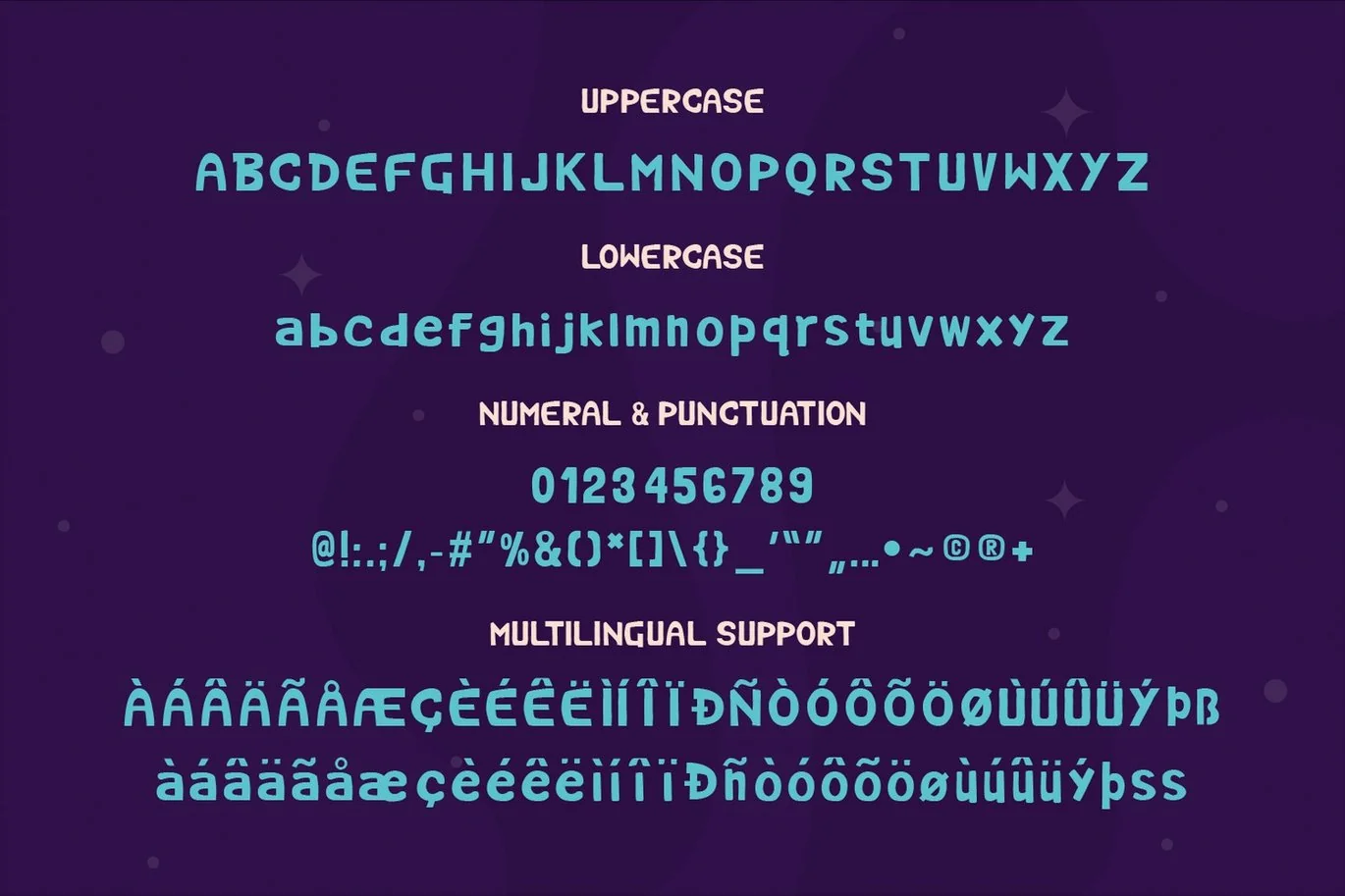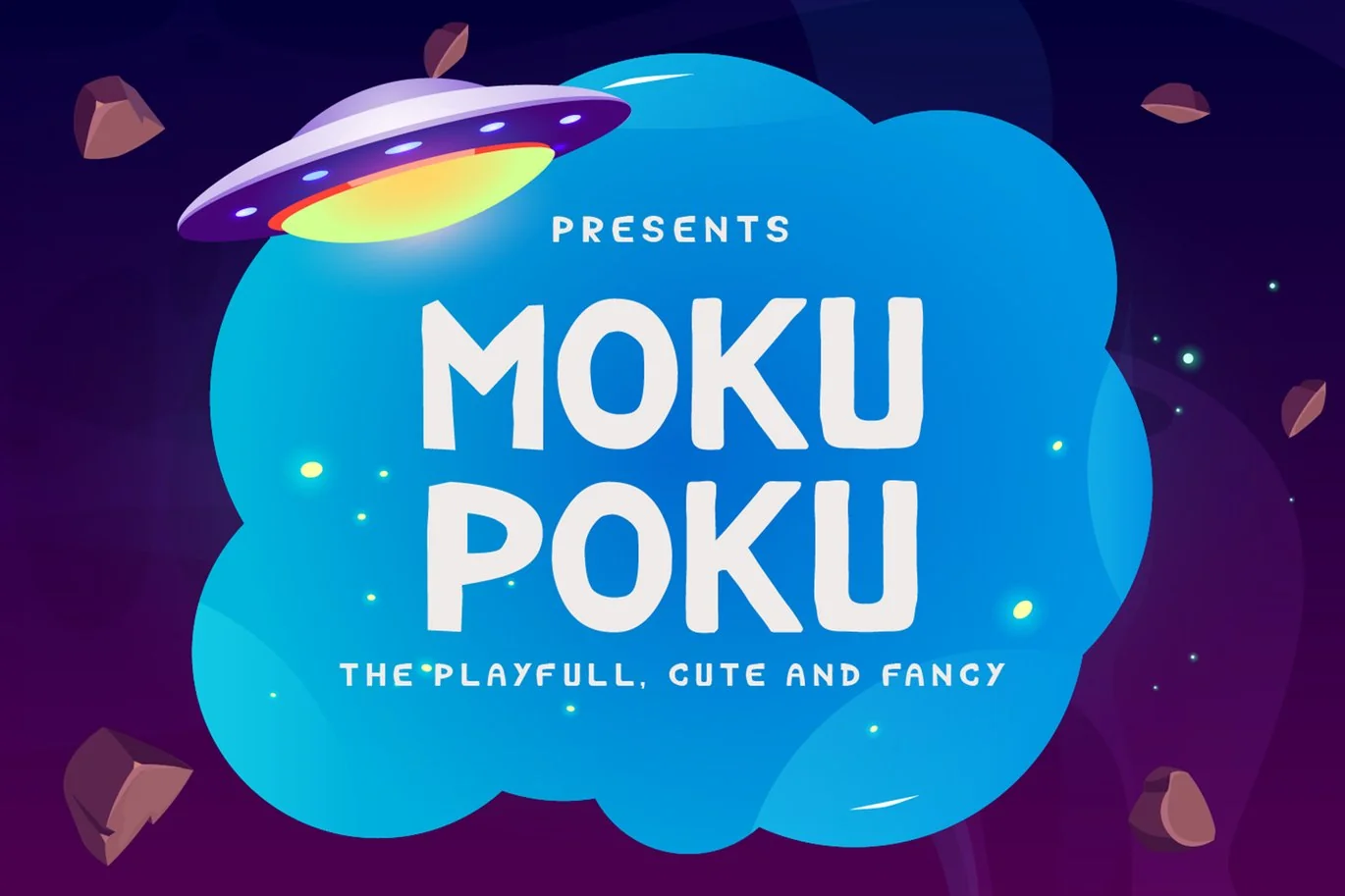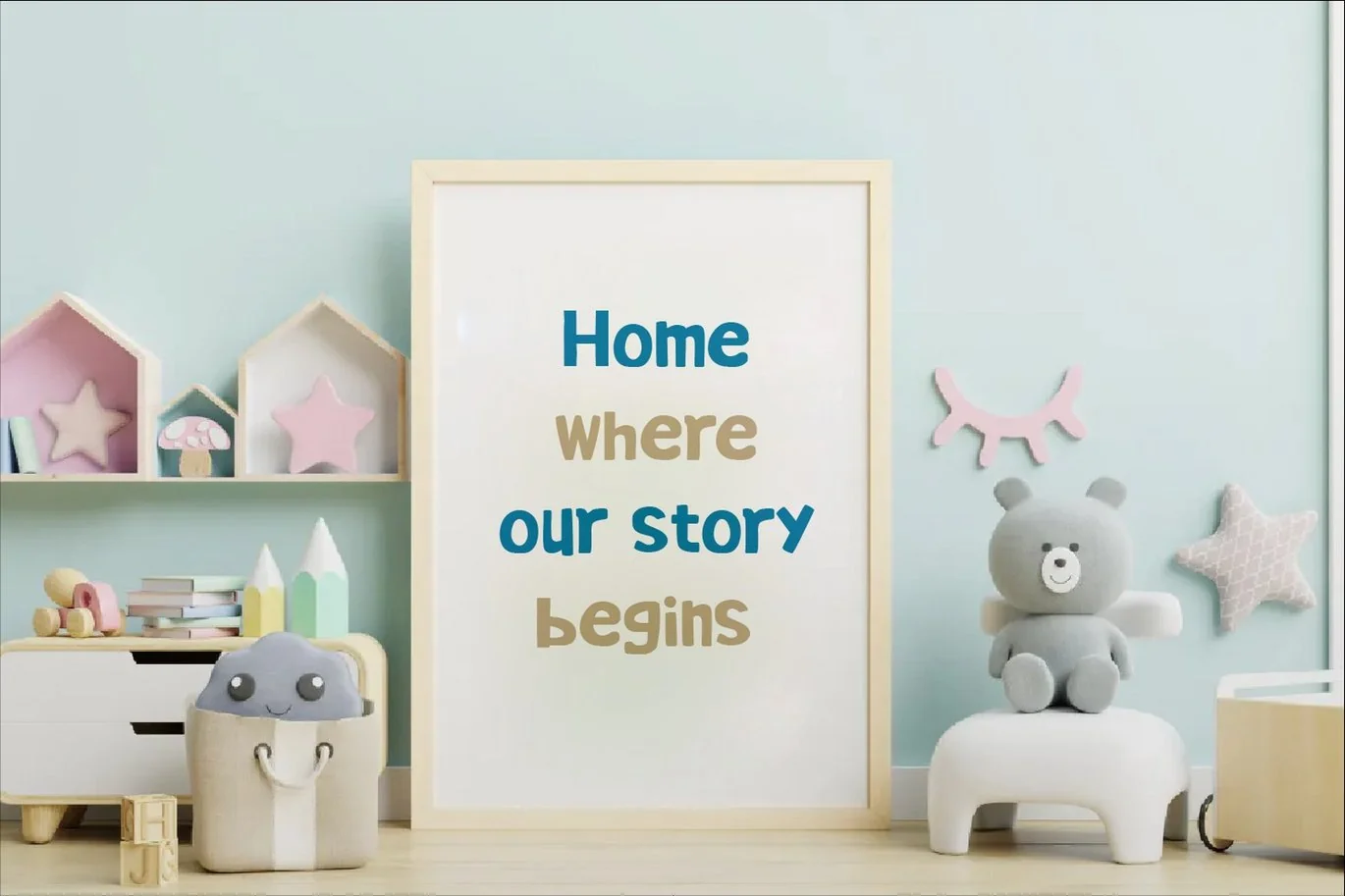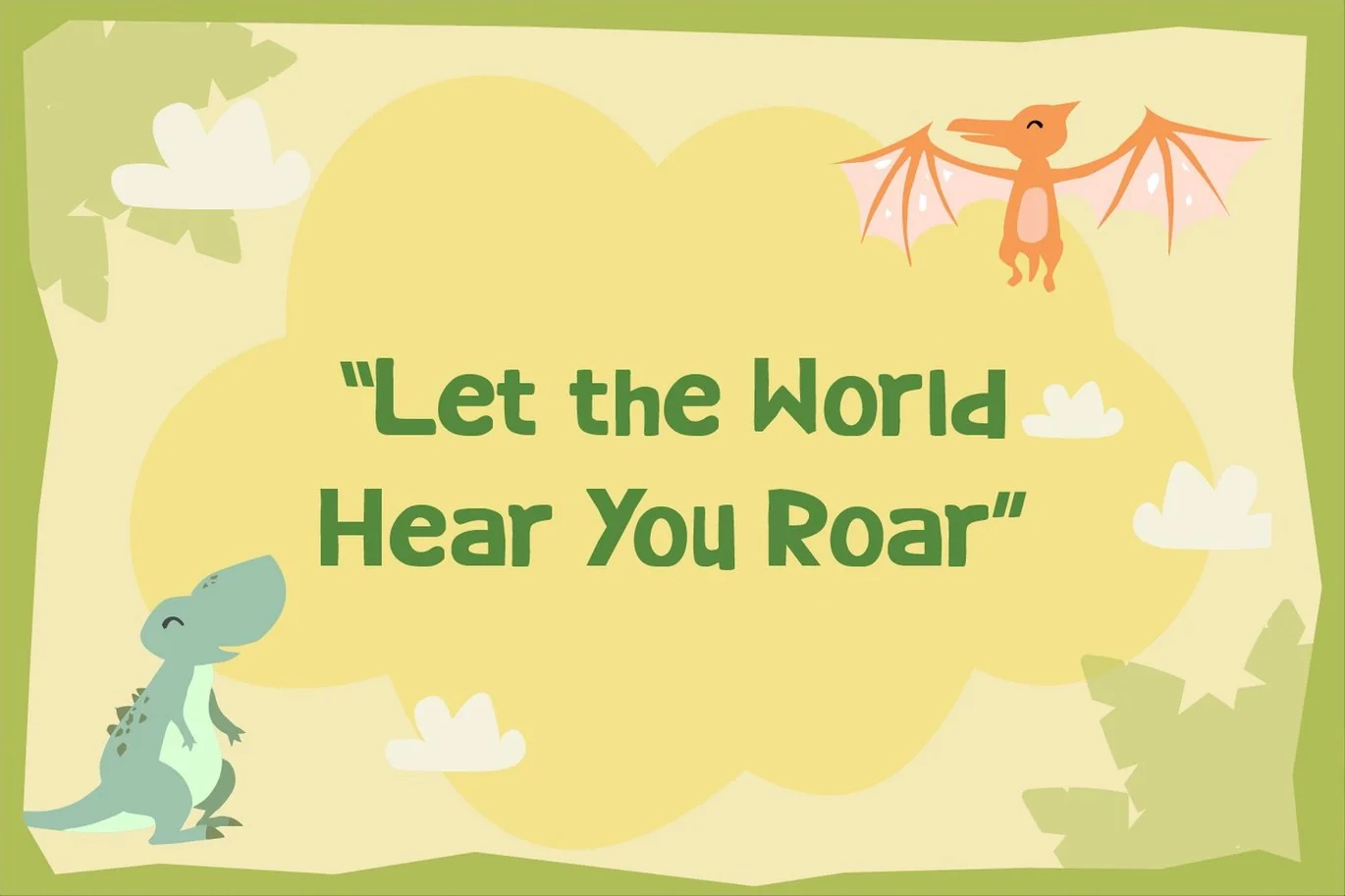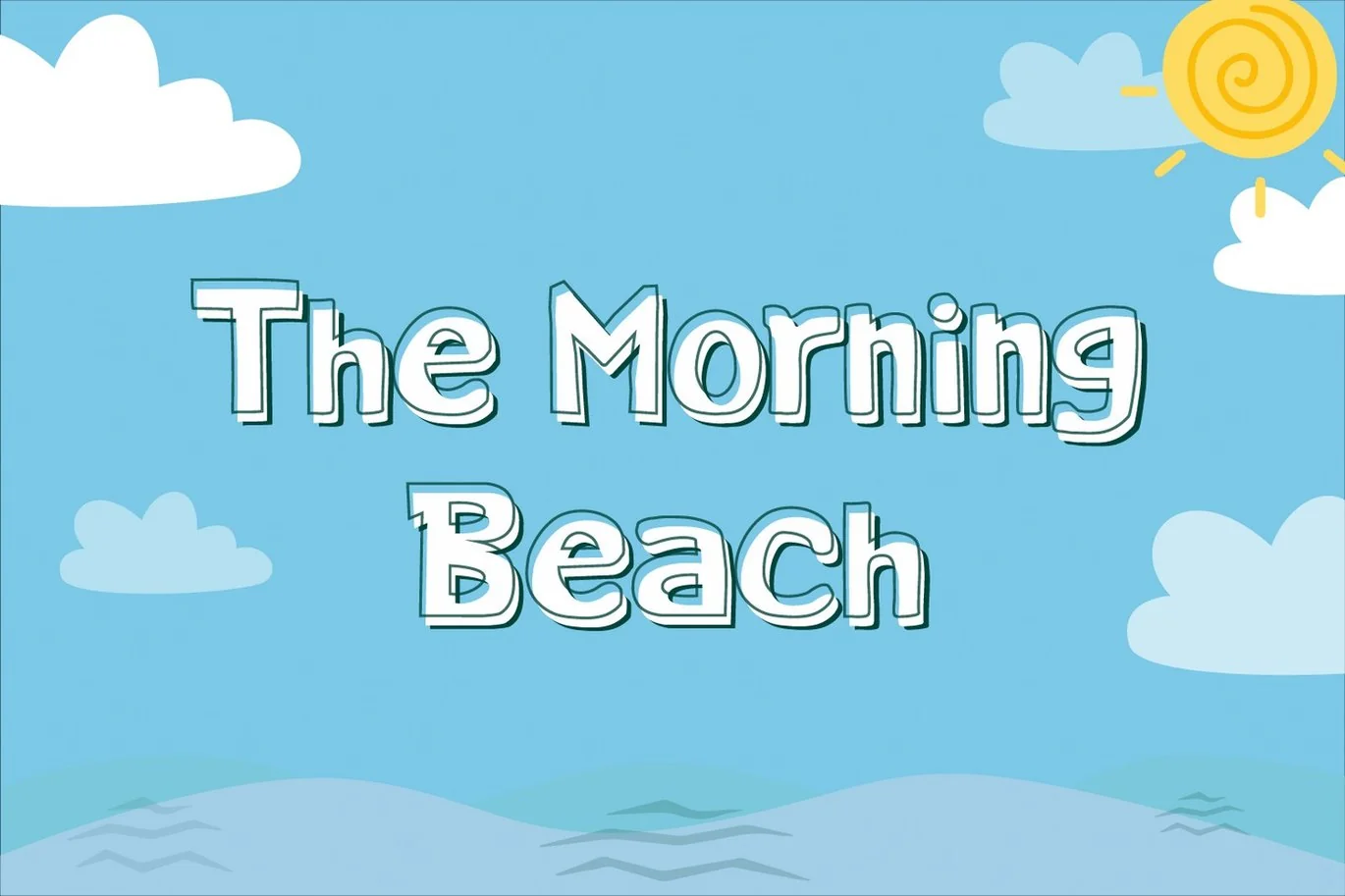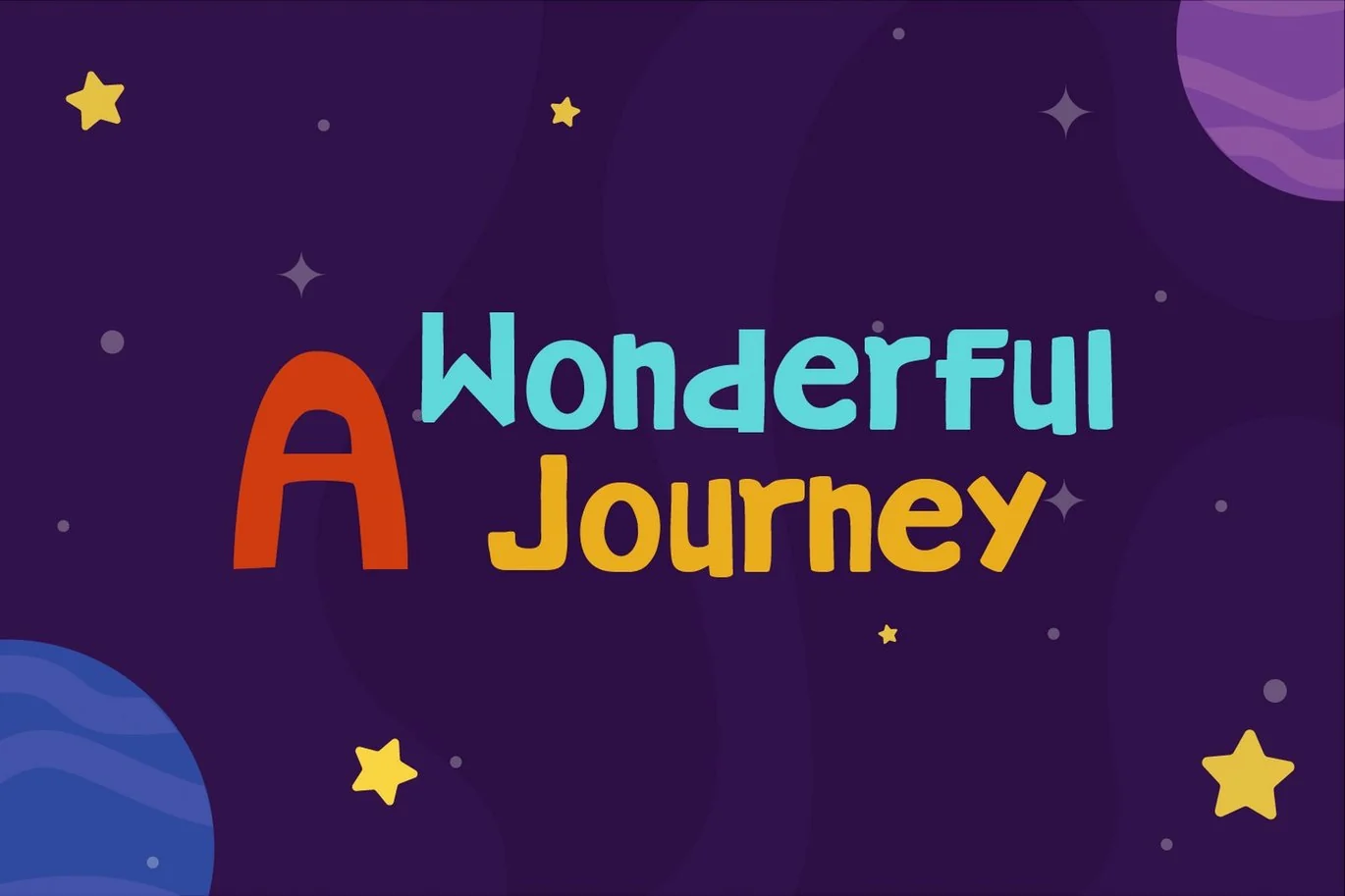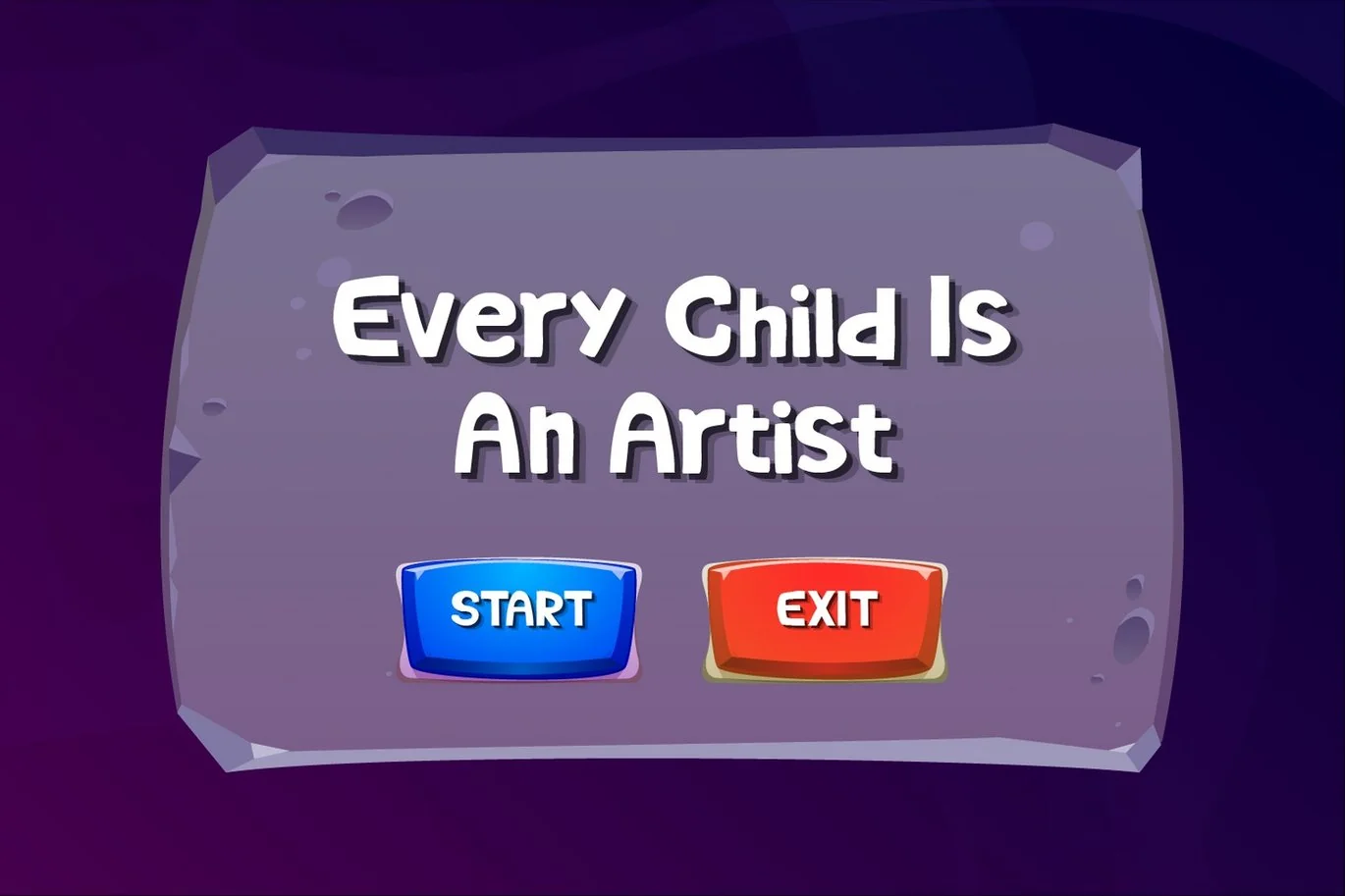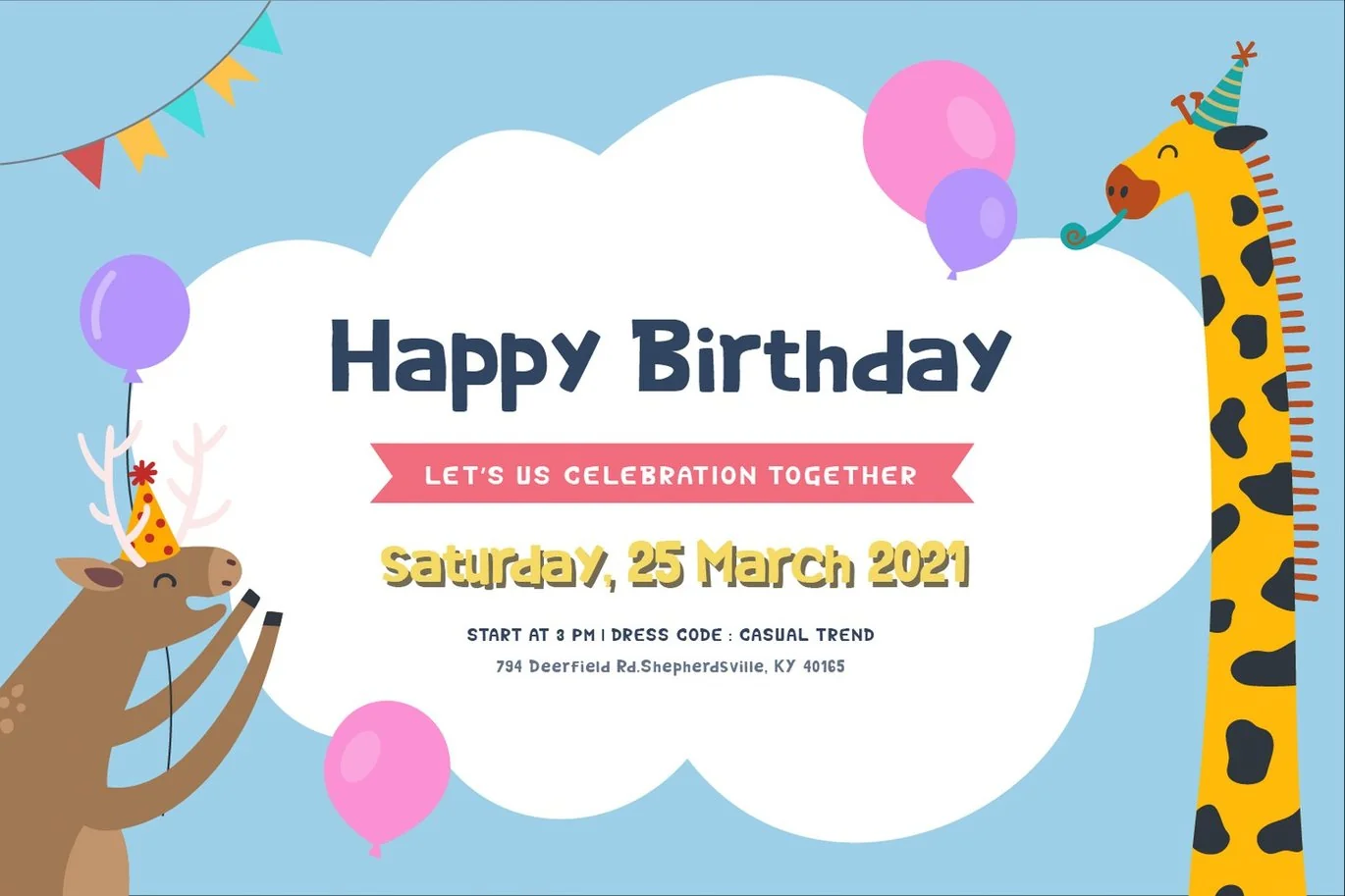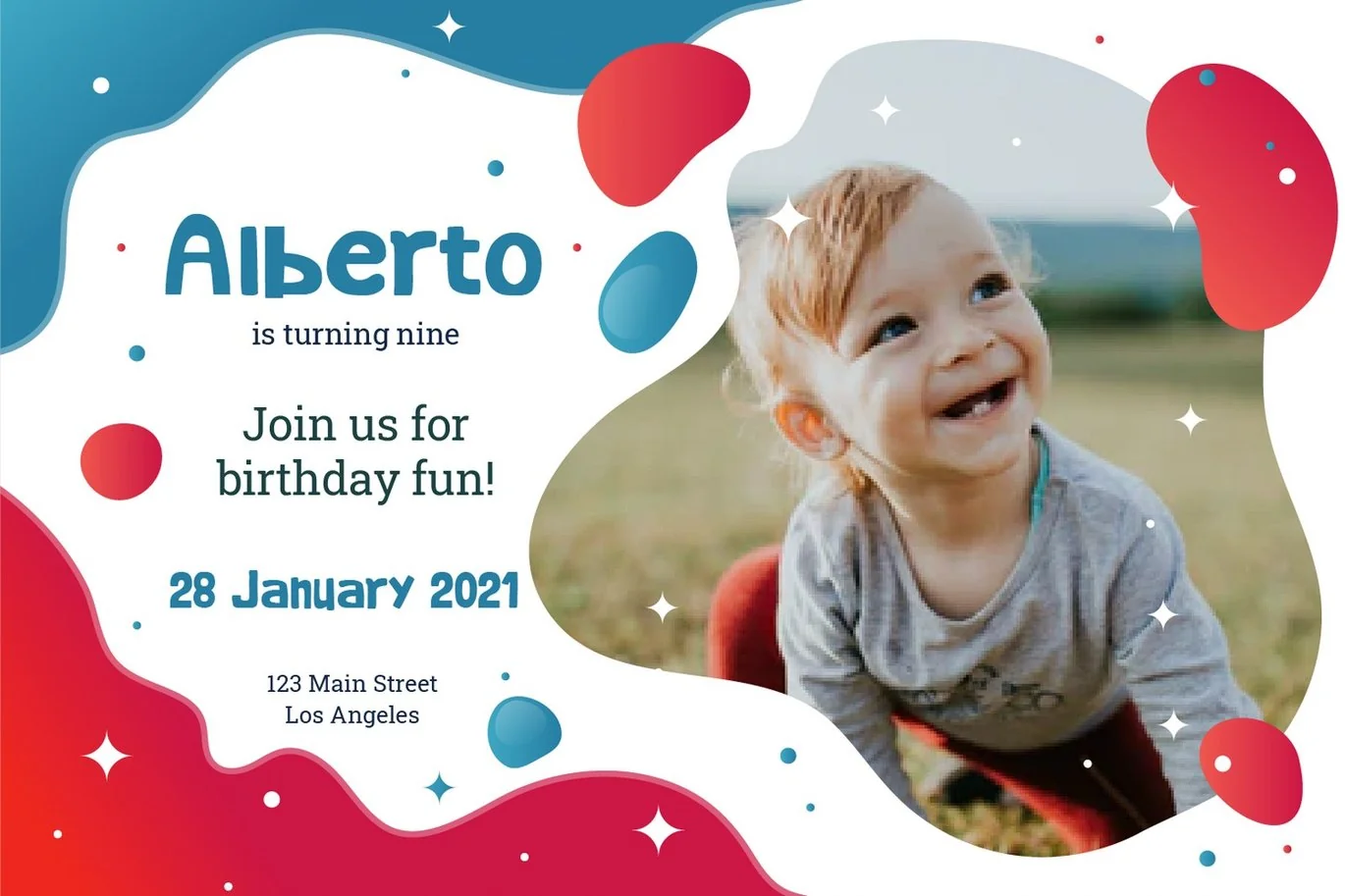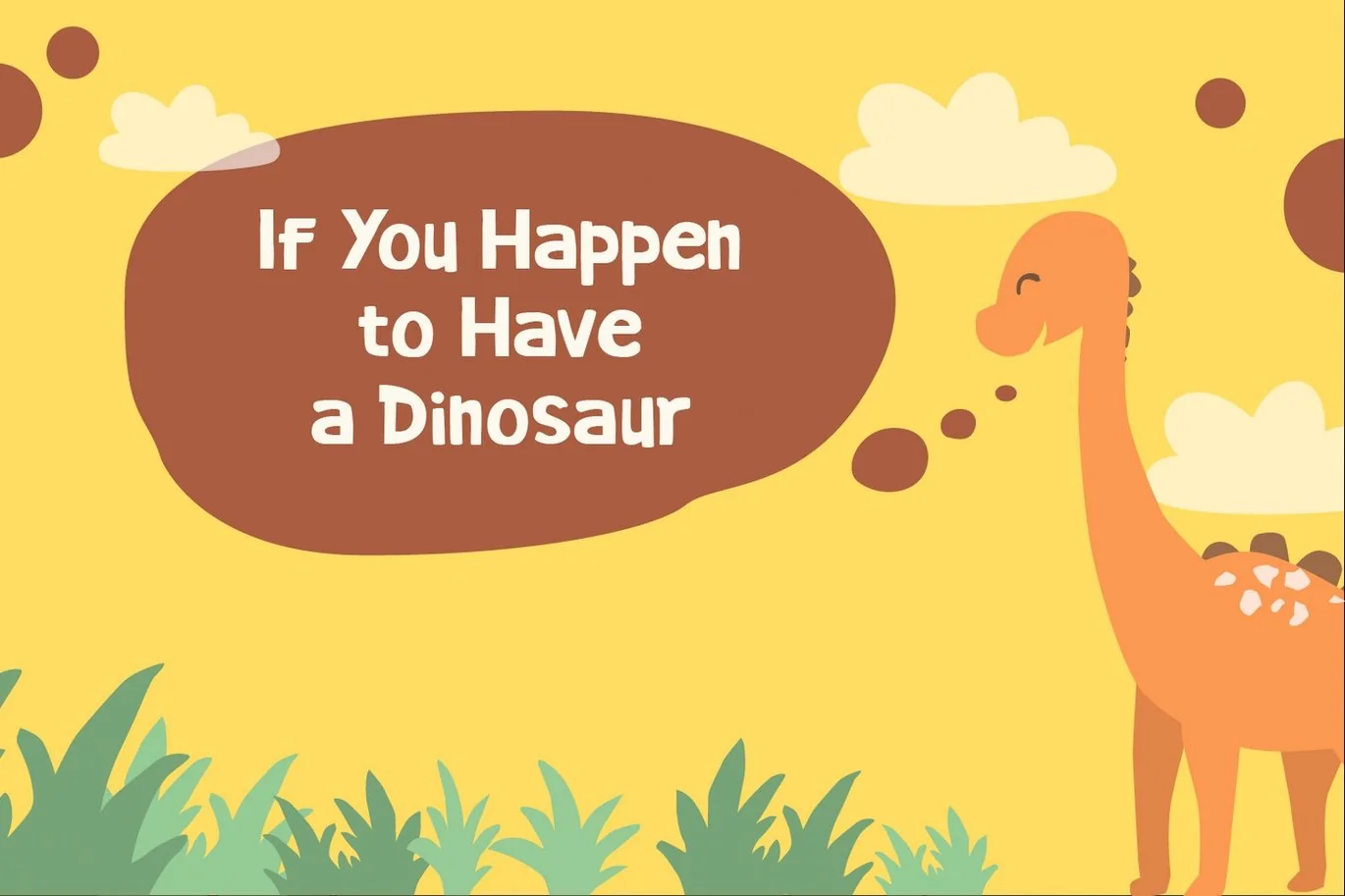
Mokupoku – Playful Cartoon Display Font
Mokupoku – Playful Cartoon Display Font is a bold, cheerful, and uniquely quirky display font crafted for fun-loving designs! With a playful letterform and lively curves, this font is ideal for children’s projects, cartoon titles, game interfaces, birthday invitations, toy branding, and any project that needs a dose of whimsy and happiness. It comes with full uppercase, lowercase, numerals, punctuation, and extensive multilingual support.
Perfect For:
– Kids Posters & Flyers
– Birthday Invitations
– Animated Titles
– Game UI Typography
– Toy Branding & Packaging
– Comic Book Designs
– Educational Material
– Logo for Kids Brand